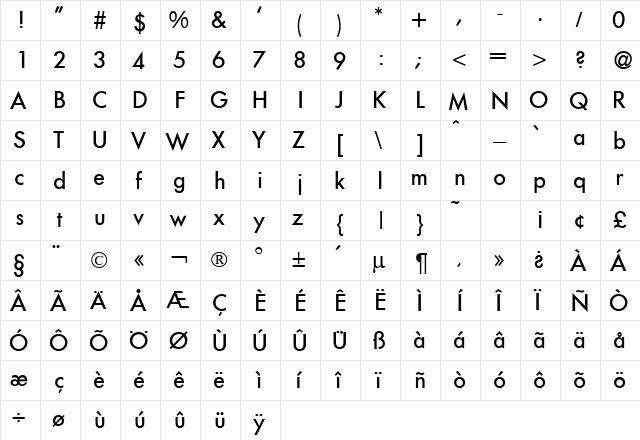
FutoralMedDB Normal
Design Context for FutoralMedDB Typeface
FutoralMedDB takes a measured approach to typography — its balanced proportions and neutral character make it a reliable workhorse for both digital and print work.